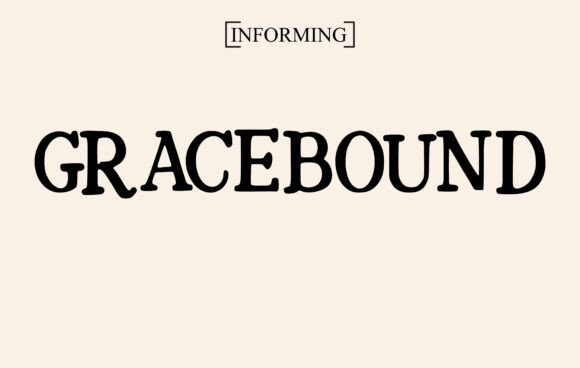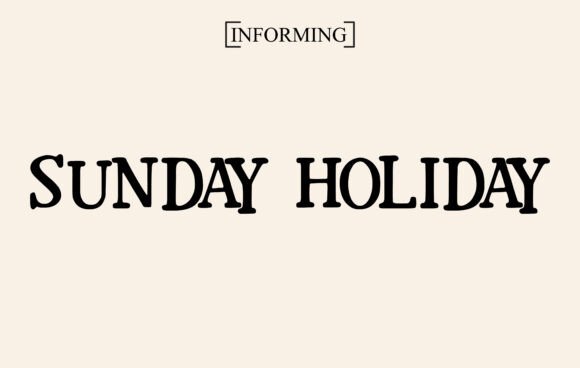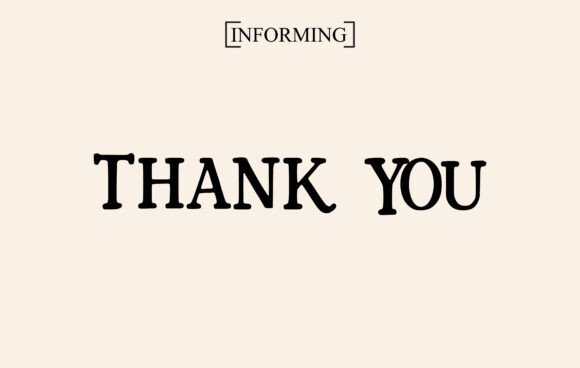
About the Gracebound Font
Meet Gracebound Font, a stunning font that brings a touch of elegance and professionalism to any design. This font is designed to be a true favorite and it has the potential to take your creative ideas to the highest level
Gracebound’s elegant and slightly playful personality makes it ideal for headlines, branding projects requiring a touch of sophistication, and short-form text on packaging or invitations. Its legibility is sufficient for short body copy, but its refined serifs might become visually tiring in large blocks of text. Avoid using it for UI elements or lengthy paragraphs.
Pairing Gracebound effectively depends on the desired mood. For a classic feel, consider pairing it with a clean sans-serif like Lato or a neutral serif like Garamond. To emphasize its playful side, a more geometric sans-serif such as Futura or a handwritten script font would create a nice contrast.
In short, Gracebound is best suited to projects that benefit from a touch of timeless elegance and subtle personality. It’s not a font for minimalist designs, but it’s versatile enough to support a range of branding applications and creative projects.